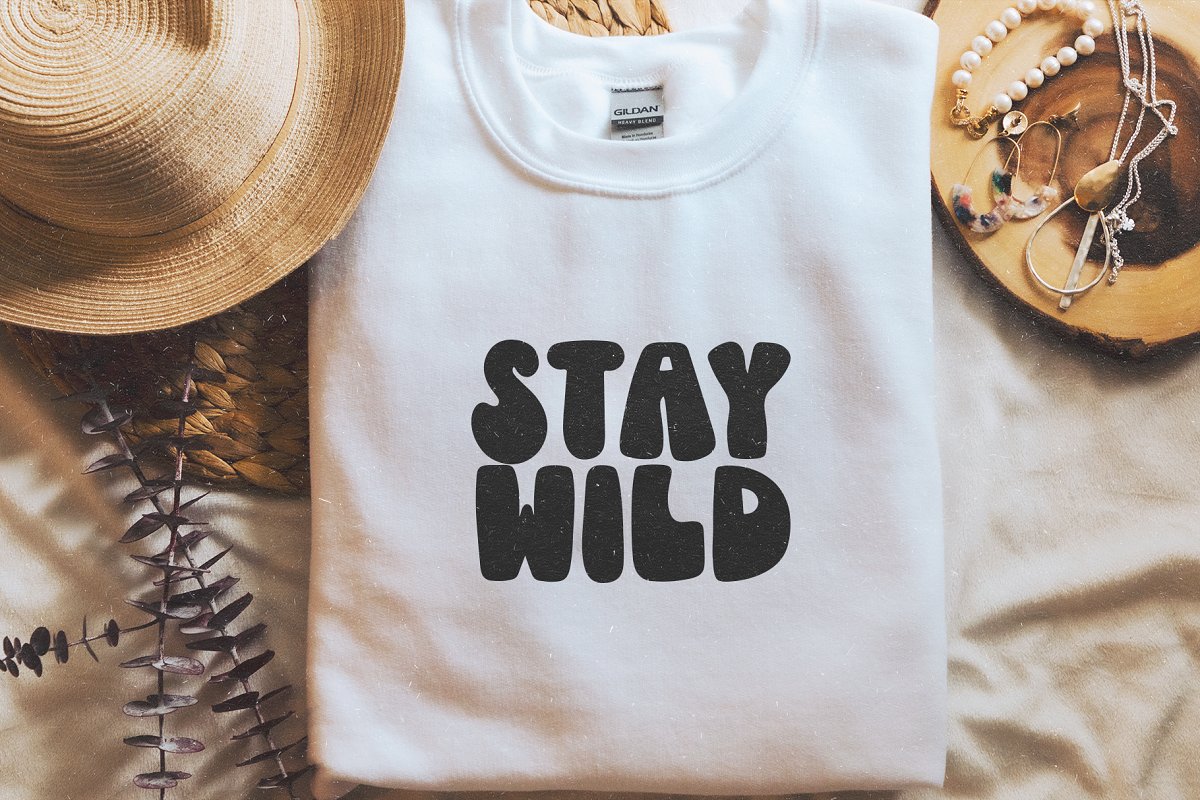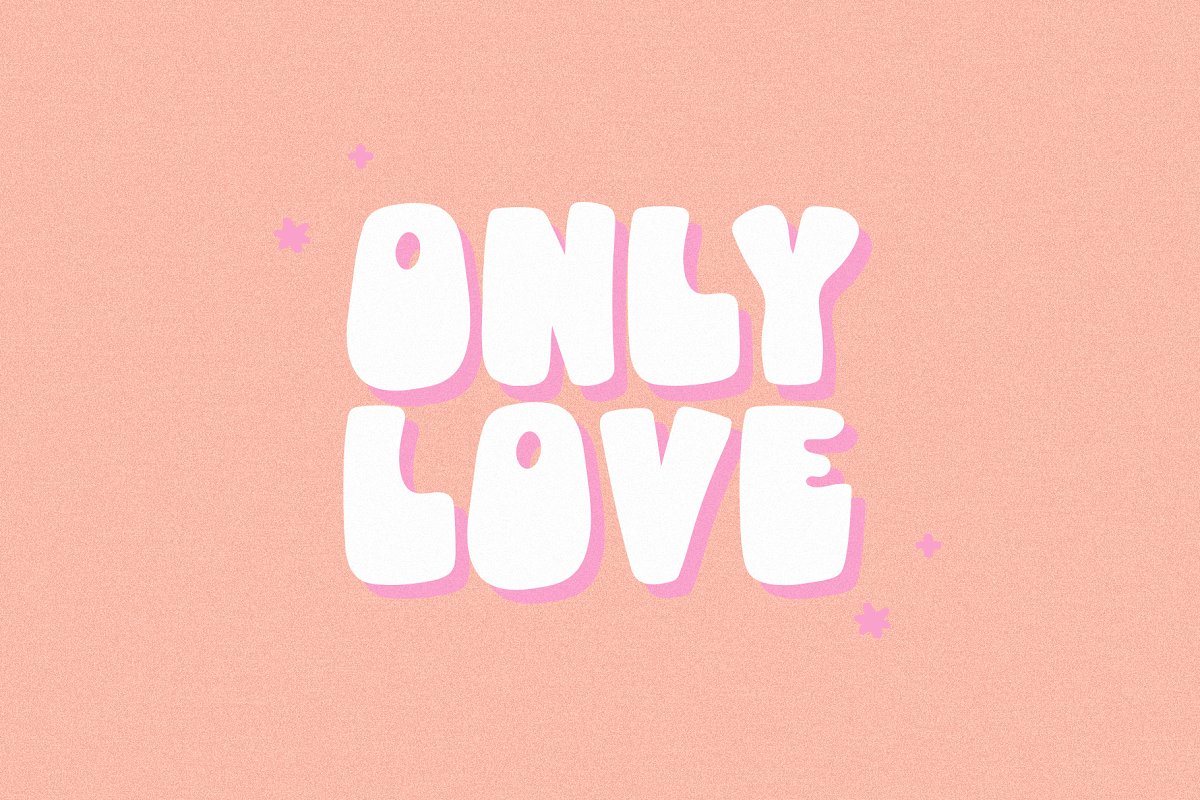
About the Good Vibes Retro Font
Grab this font and 14 more for only $16 dollars here – https://crmrkt, com/Nl4x3J Good Vibes is a funky handwritten font!This font is perfect for all of your retro designs, procreate designs, social media, shirts, stickers, branding, logos, prints, Cricut projects, svg designs and more!Includes OTF/TTFThank you!